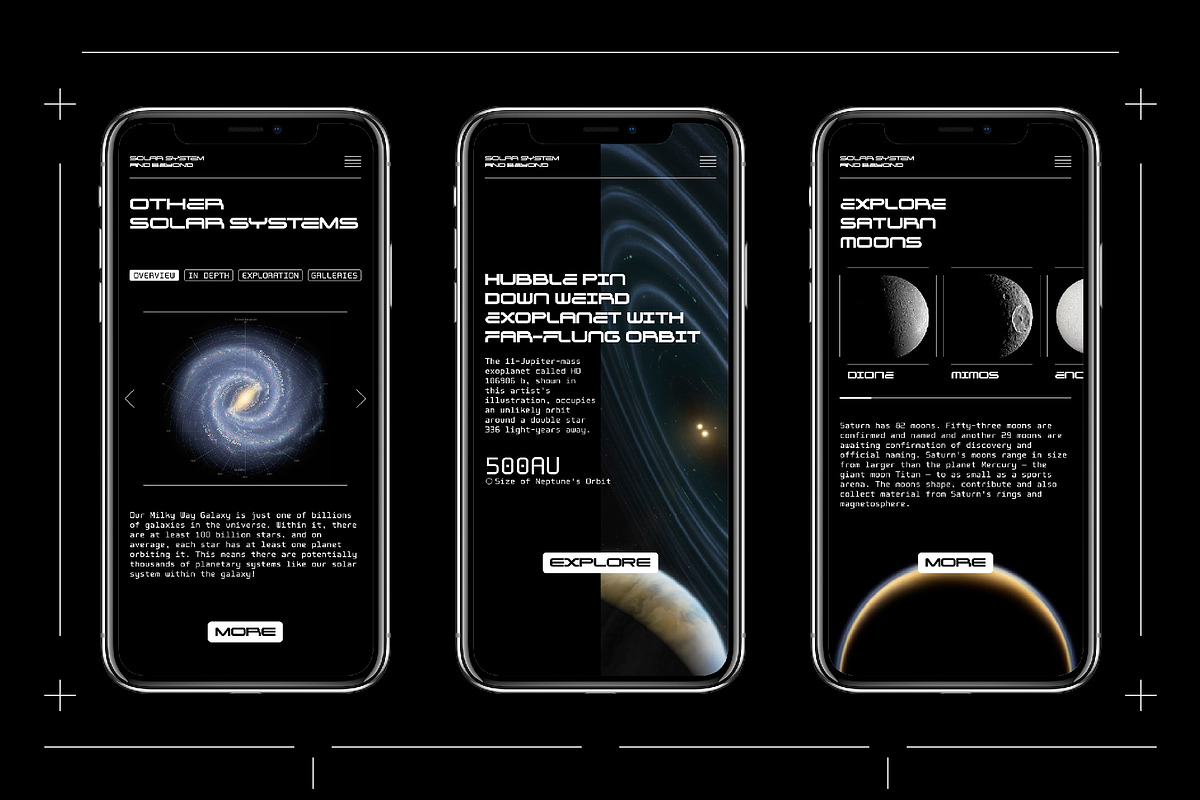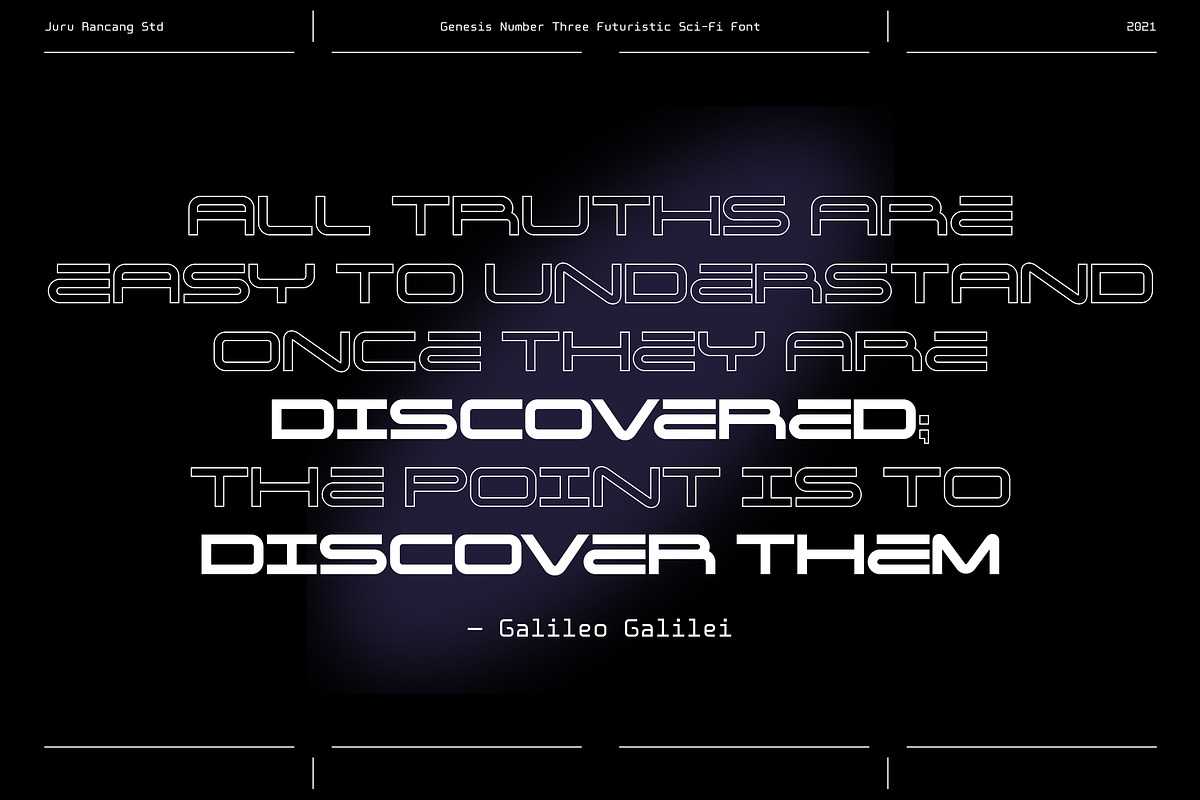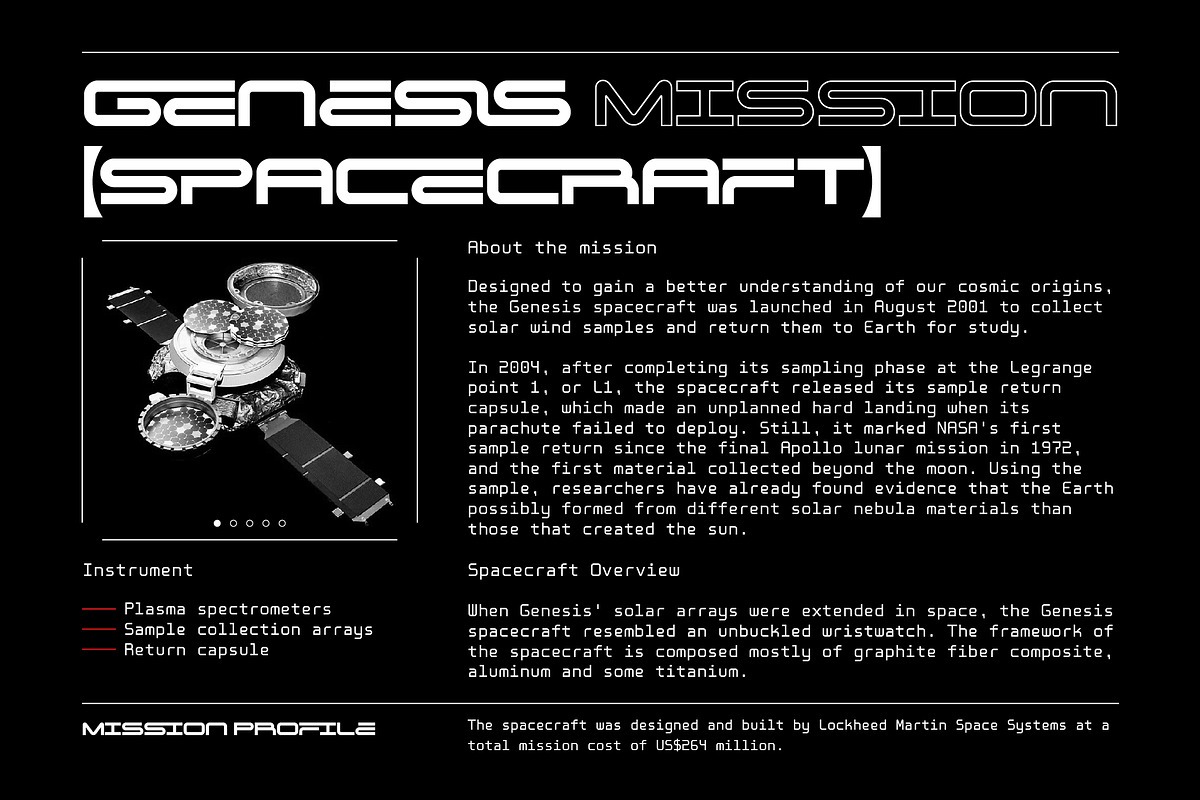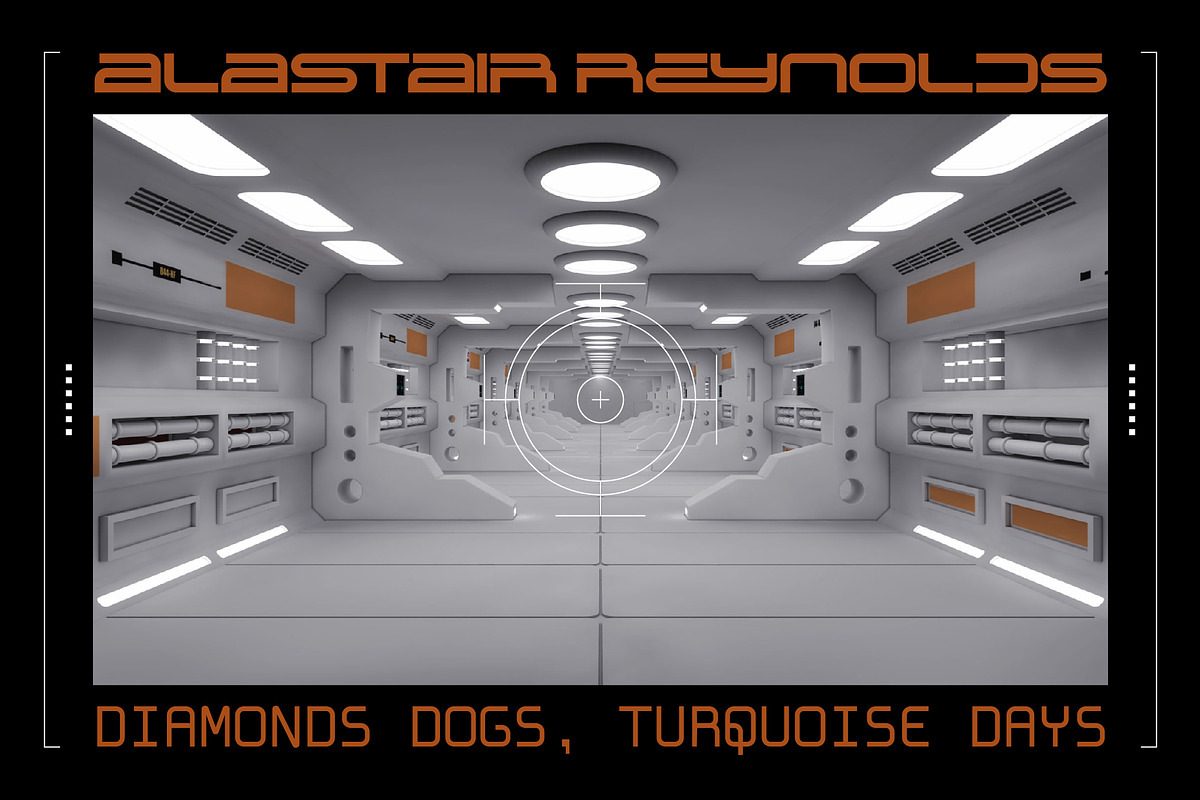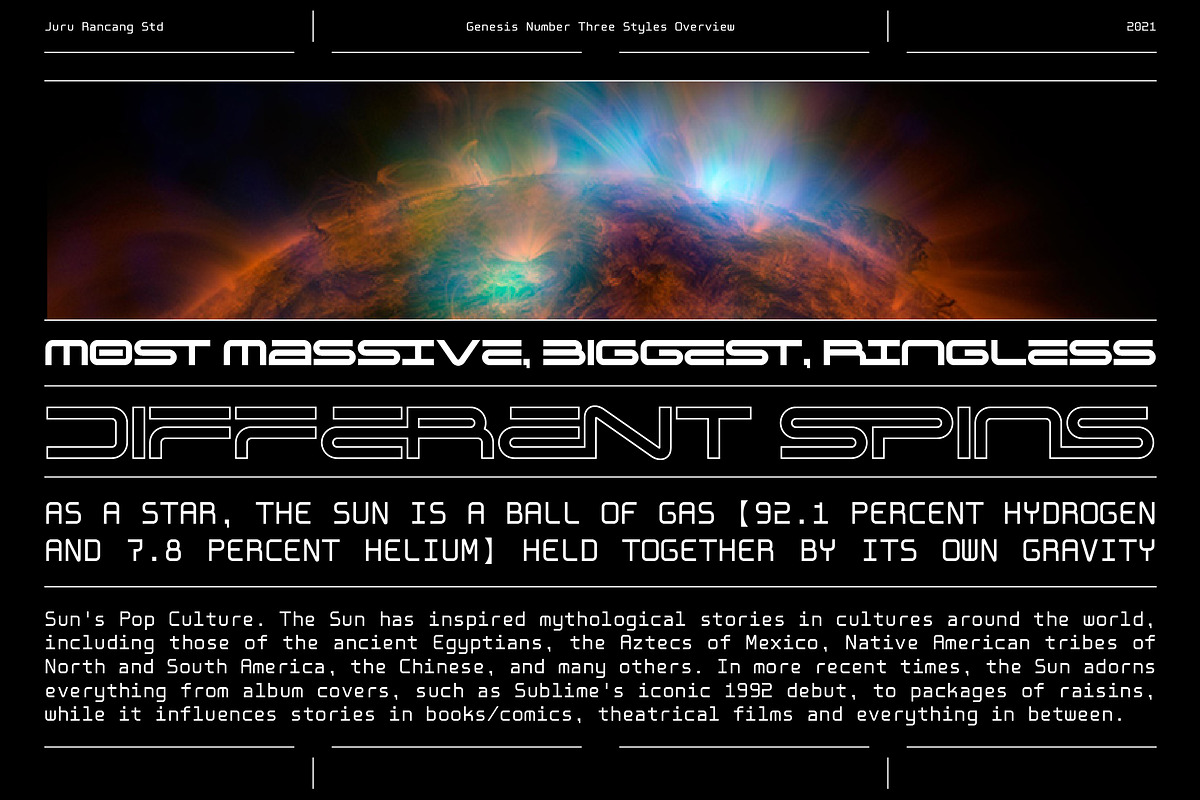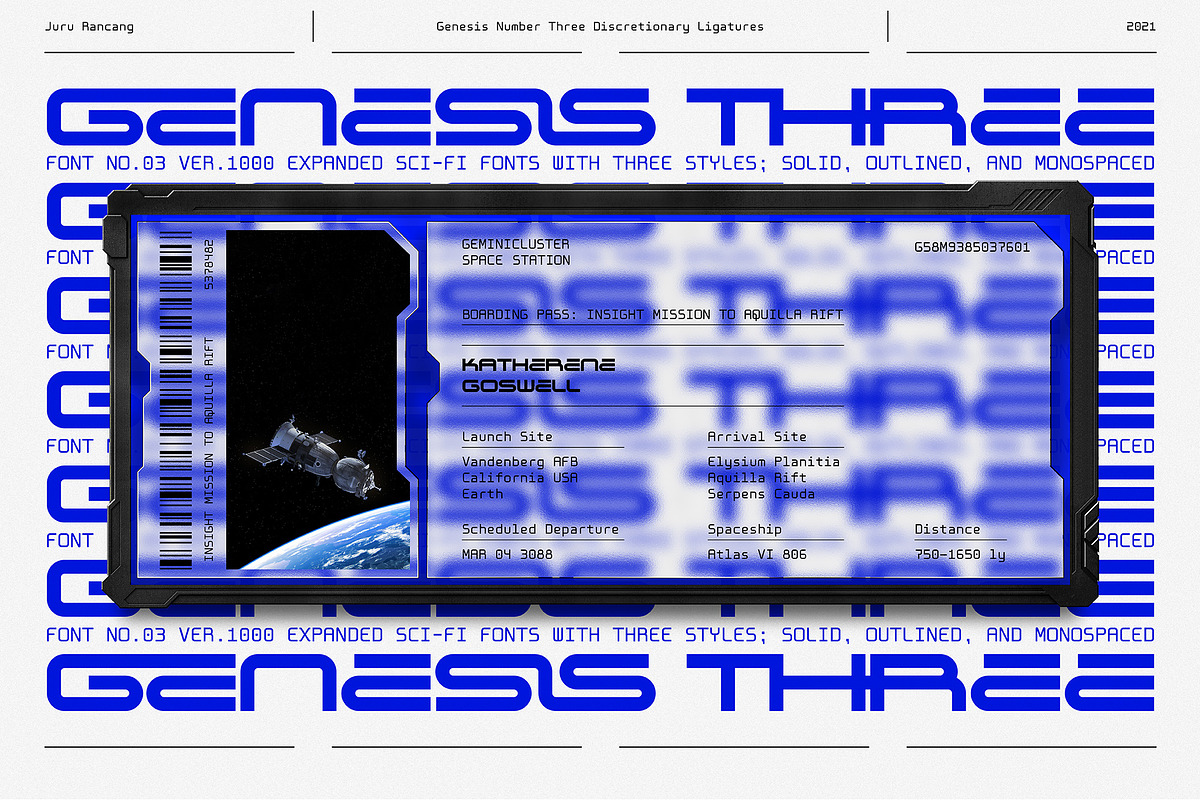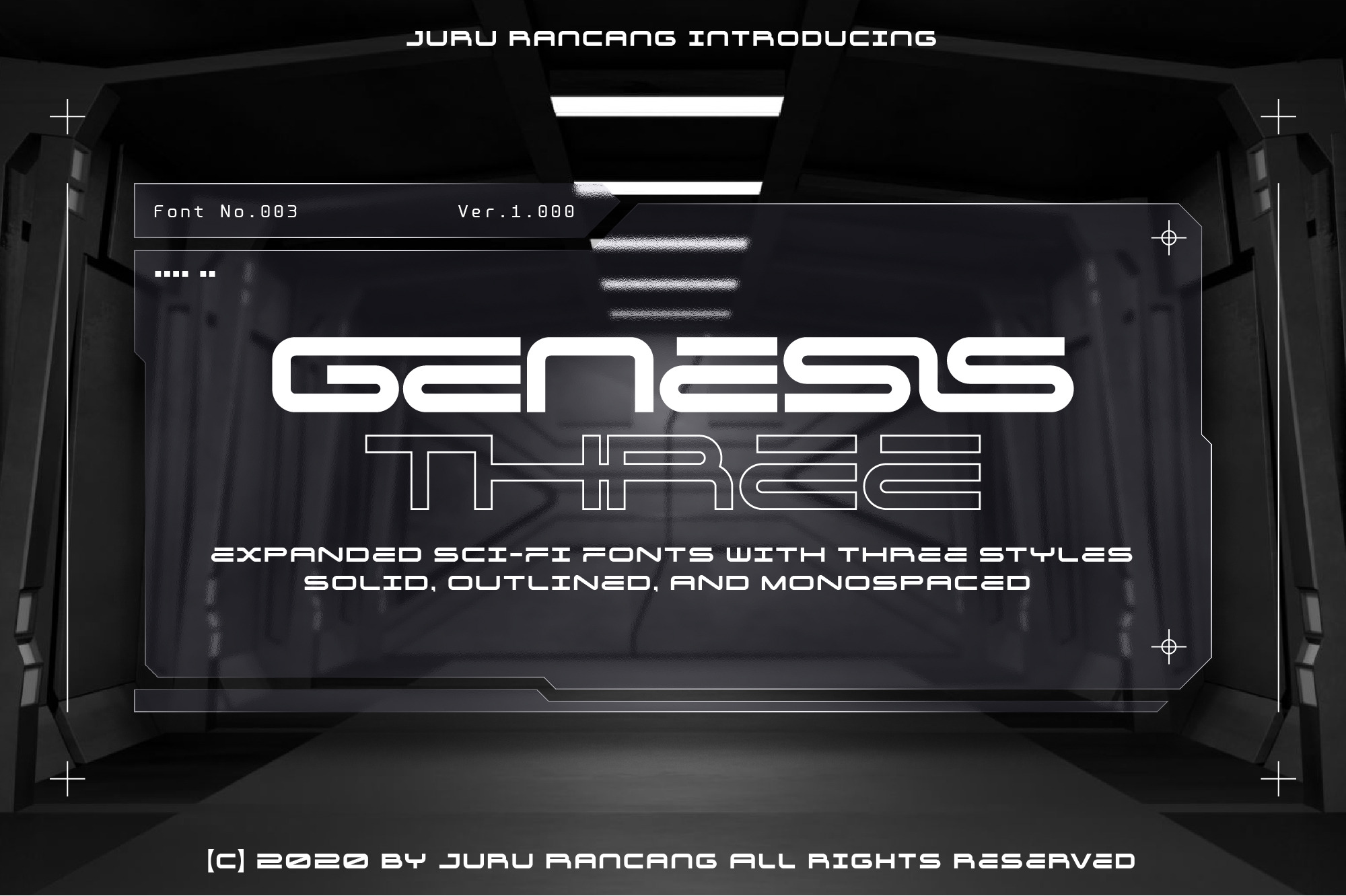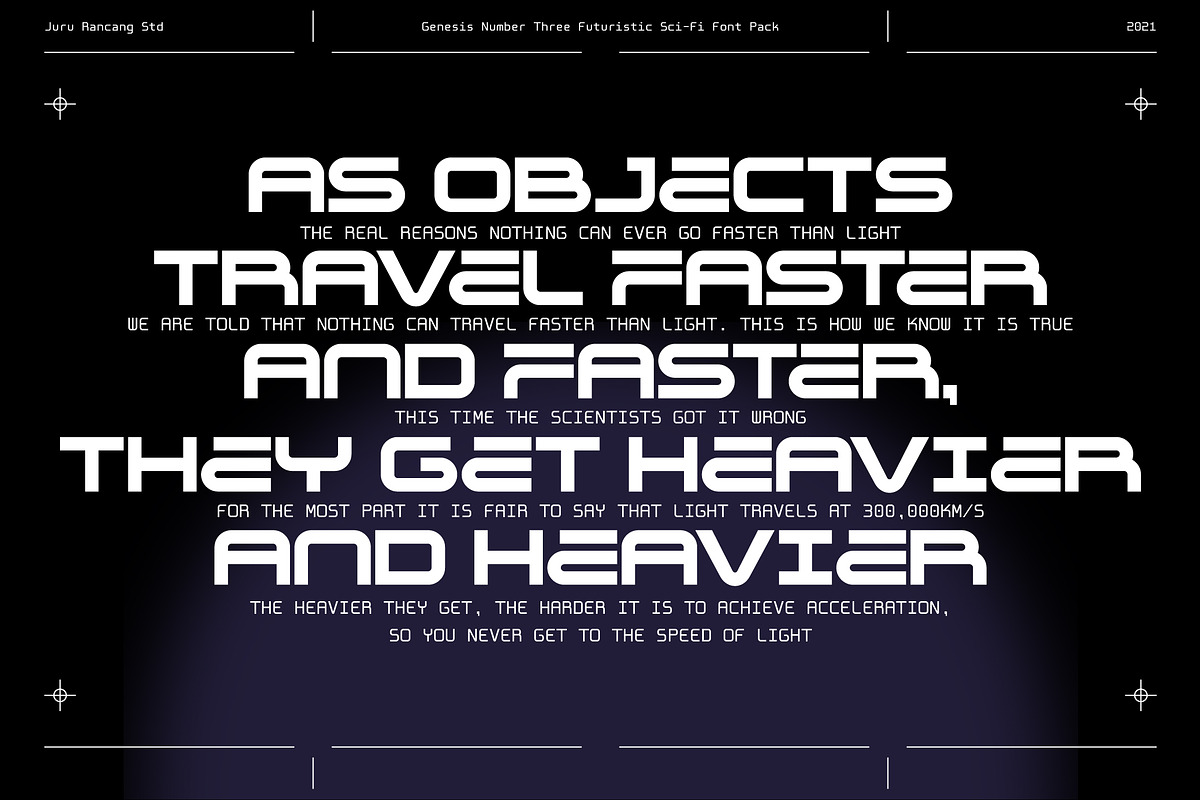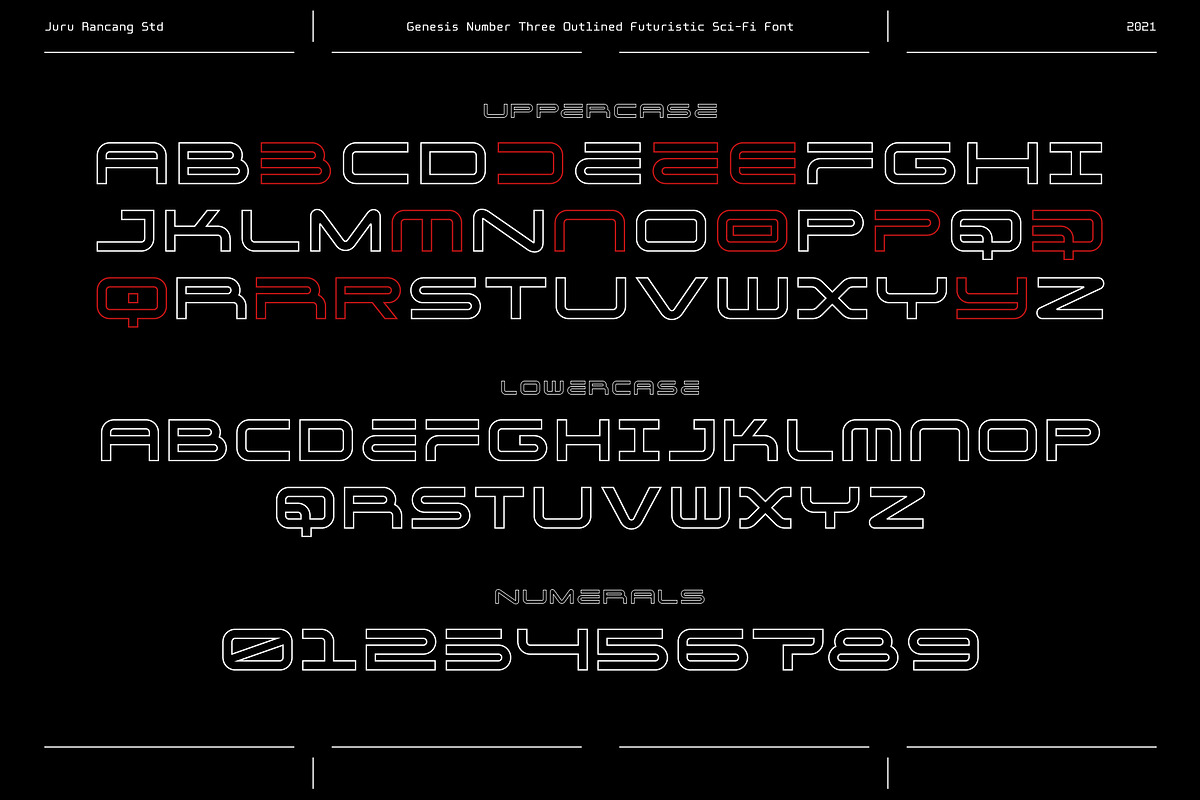
Genesis Three Expanded Sci-Fi Fonts
Genesis Three - Futuristic expanded Sci-Fi pack contains 3 fonts
Genesis Three is Display Font Family with 3 styles inspired by neo-futuristic age. Built with bold geometric mono-line forms with sharp edges to embrace futurism and high-tech. It includes uppercase, lowercase, multilingual letters, numbers, punctuation, various alternate styles and a bunch of discretionary ligatures.